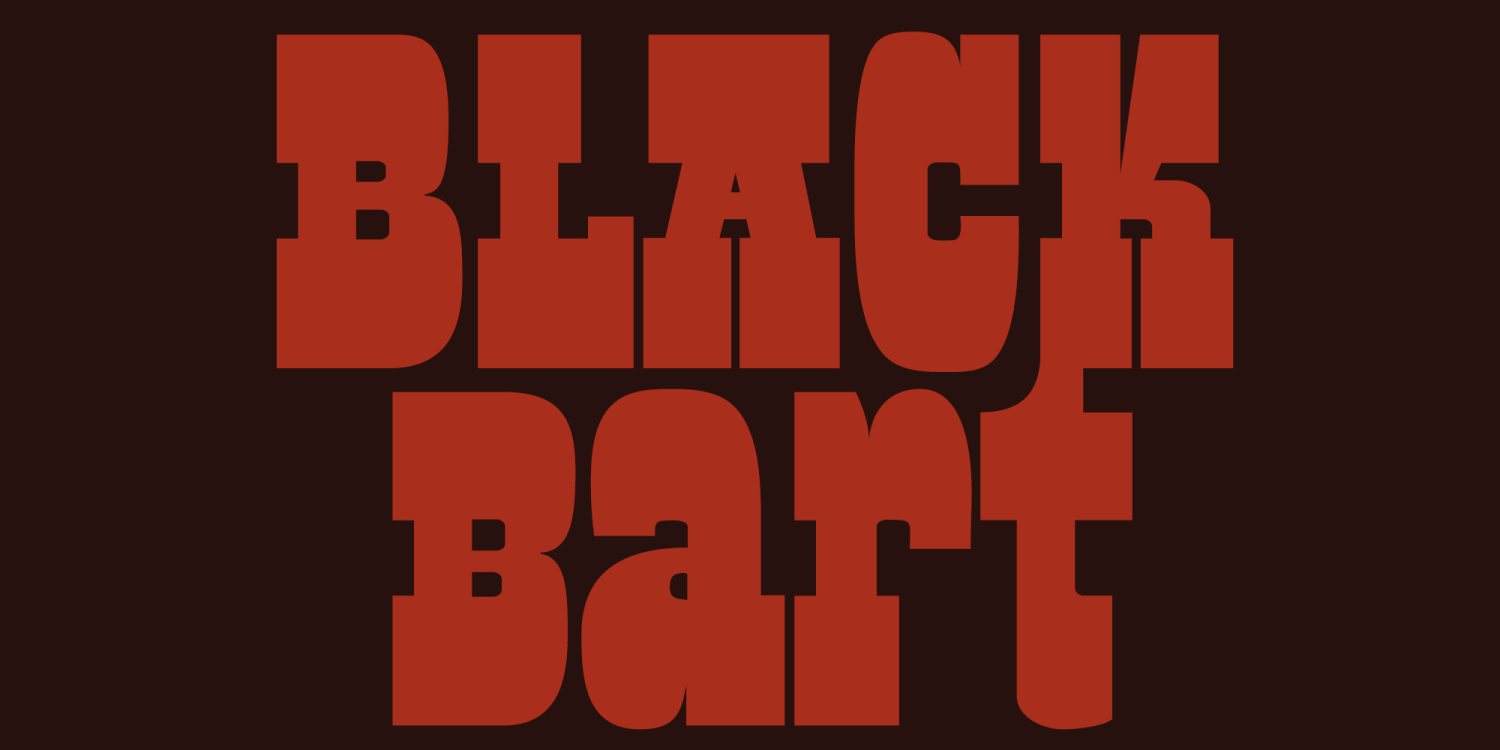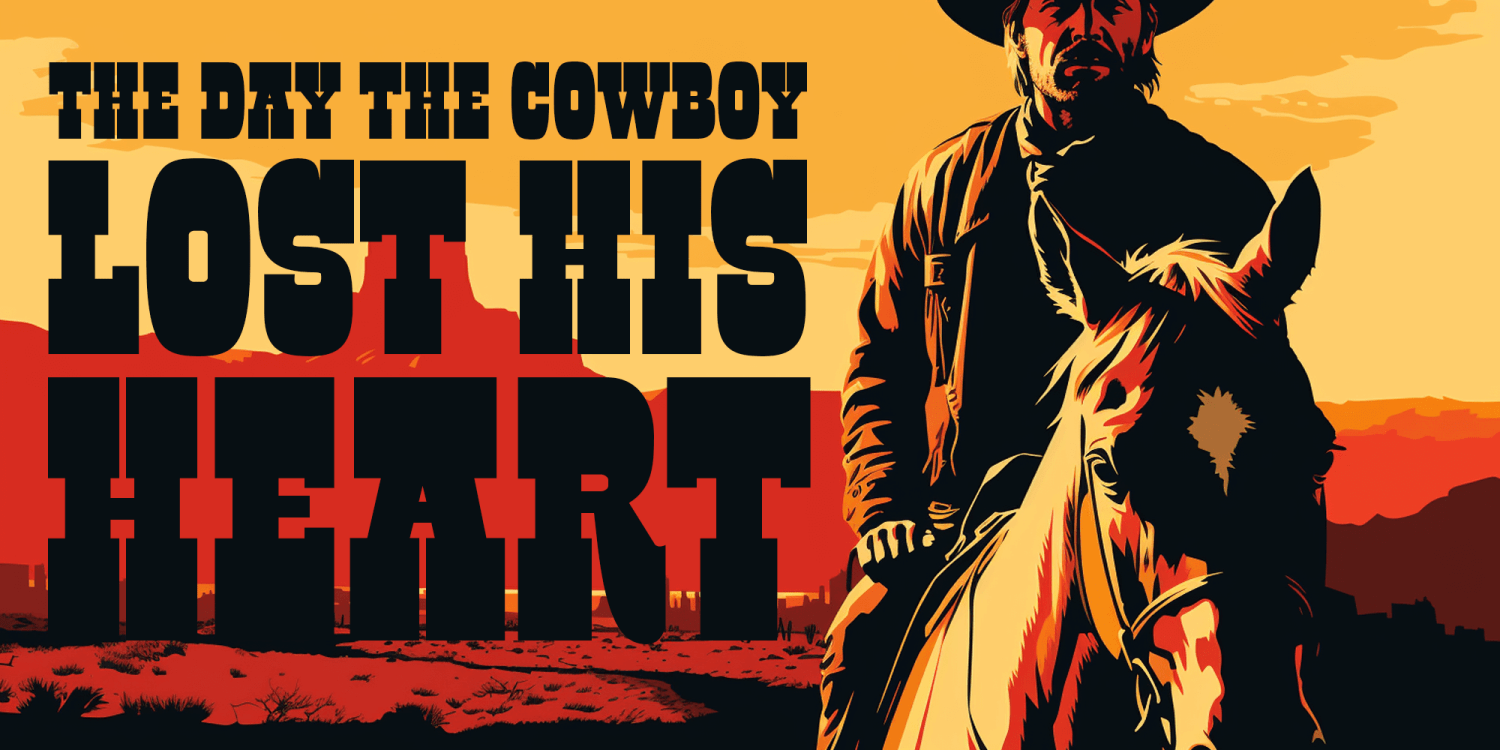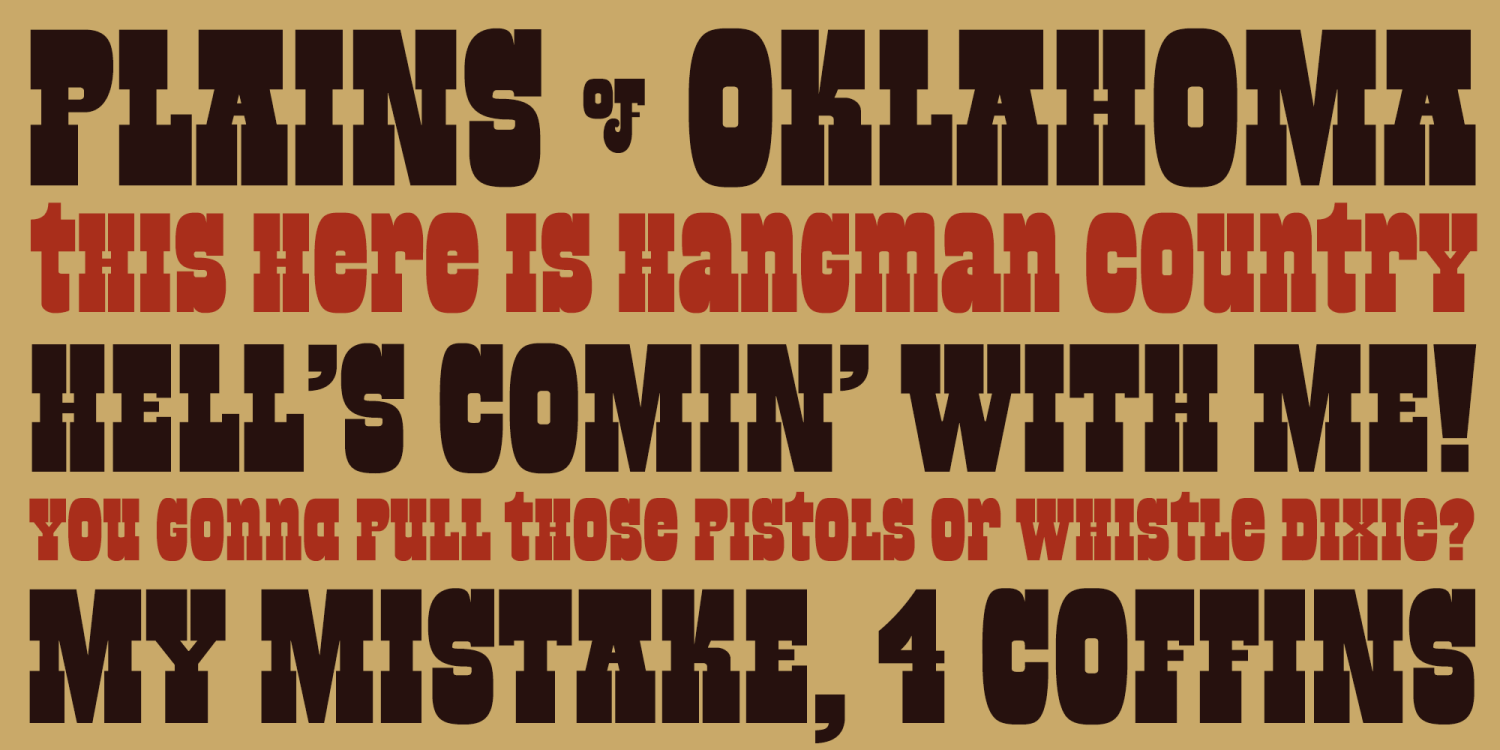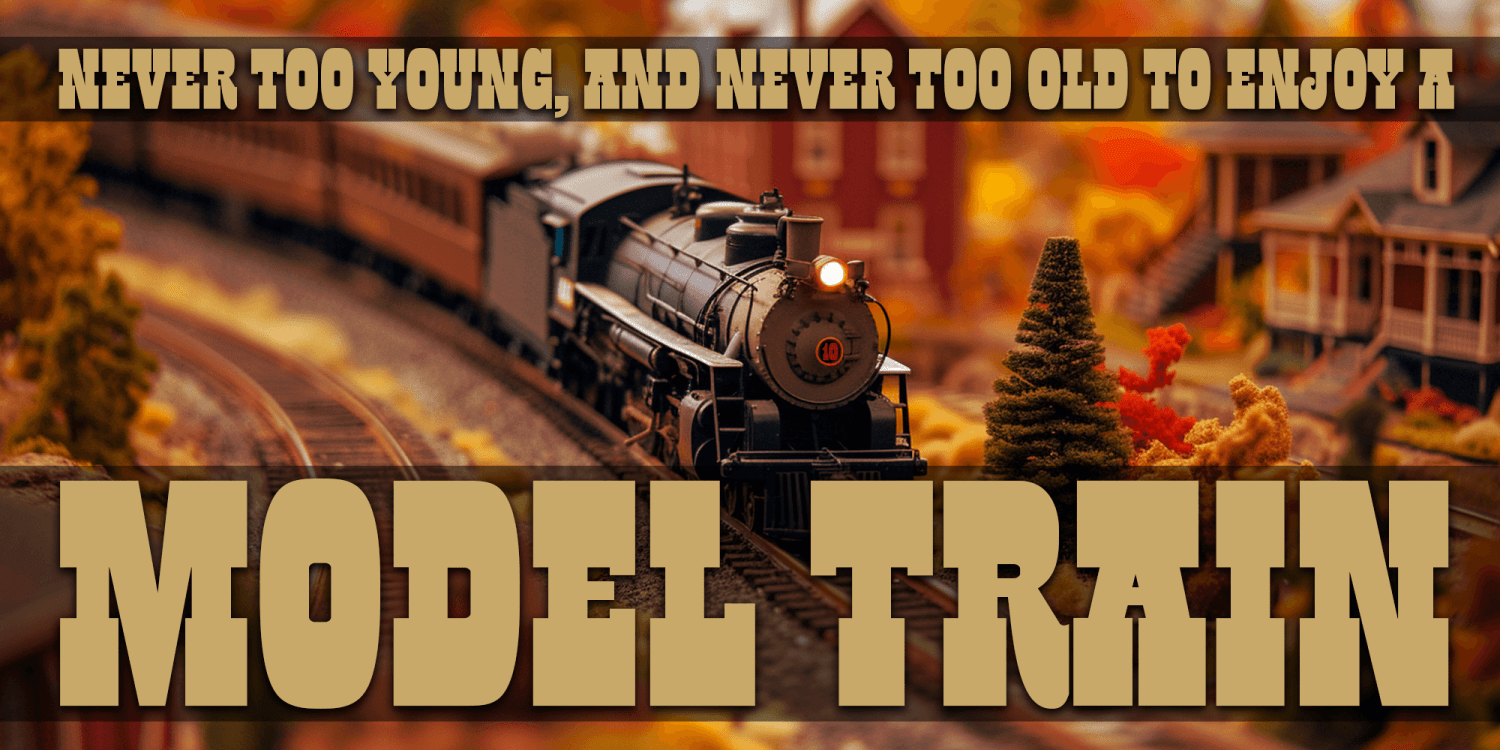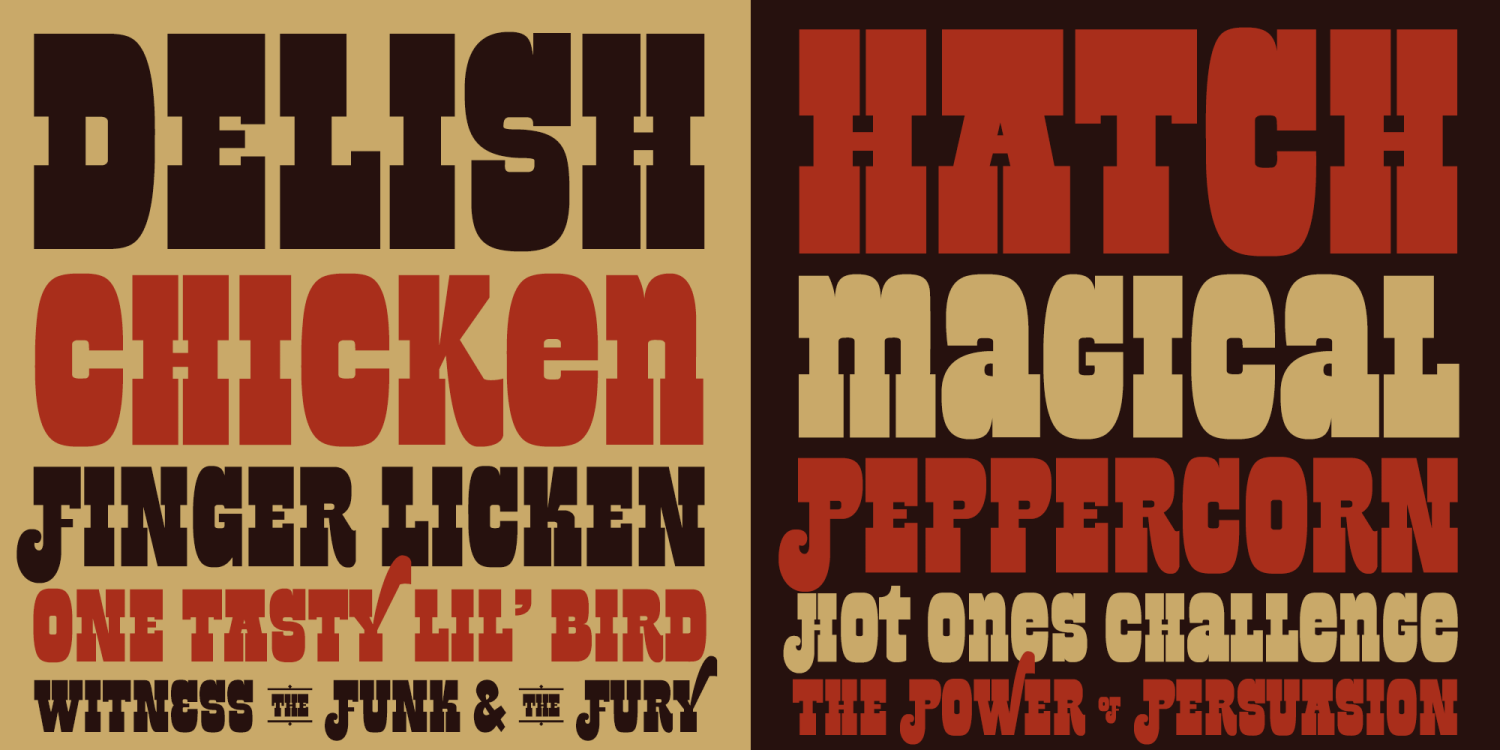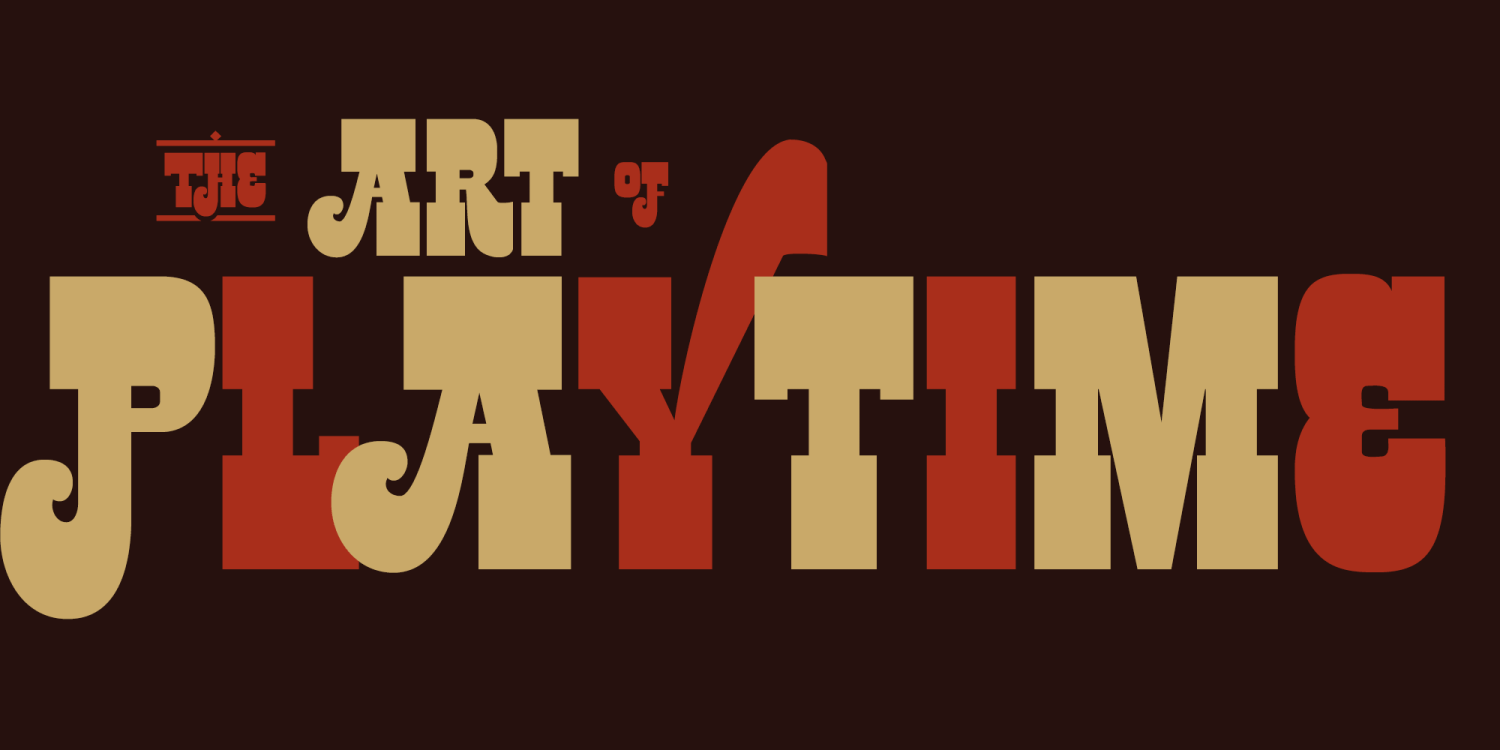
Black Bart
Black Bart comes form my love of old beefy wood type designs. Stylistic Alts offer a few variations on unicase letters A a E N R, as well as ligatures for words like "OF", "THE", "AND", and some starting letters A F H P R. The Contextual Alternates feature offers alternates to ligatures for "OF", "THE", "AND", as well as some crazy swash versions of Q V W and Y.
Funtastic to set in ALL CAPS, unicase, or throwing some opentype features into the mix. I hope you enjoy Black Bart.